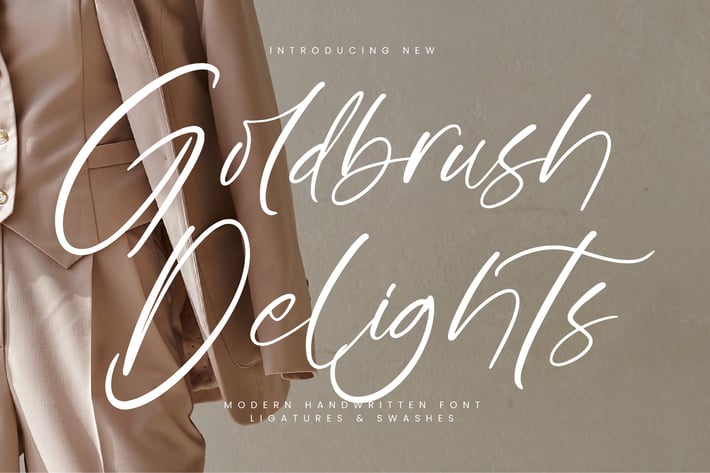
Goldbrush Delights Script Font
🌟 Stylish & Modern Handwritten Font for a Luxurious and Captivating Touch 🌟
Are you looking for a font that adds a touch of modern and stylish to your design projects? Introducing Goldbrush Delights, a modern font crafted with a flowing and sophisticated style!
Each character is uniquely designed to mimic natural stylish handwriting, giving your text a polished, professional look.
✨ Key Features:
Stylish and Modern Appeal: Ideal for logos, branding, invitations, and other creative designs.
Easy to Customize: Includes alternative characters, ligatures, and swashes for a more personalized look.
Multilingual Support: Equipped with international characters for wider usability.
Responsive Display: Looks stunning on both small and large screens, in print and digital formats alike.
💡 Perfect for:
Branding and Logos
Invitations
Social Media Content
Website Headers
Merchandise Design & more!
Make your project unforgettable with Goldbrush Delights – the exclusive font that brings every word to life!